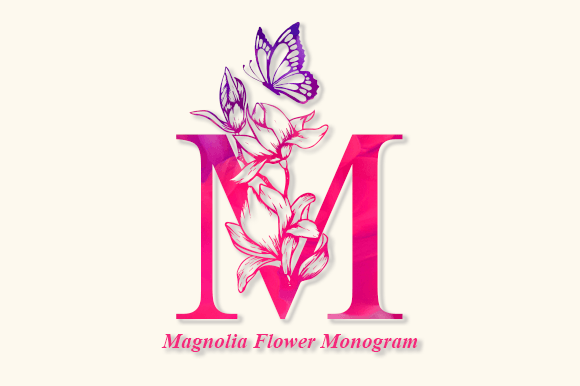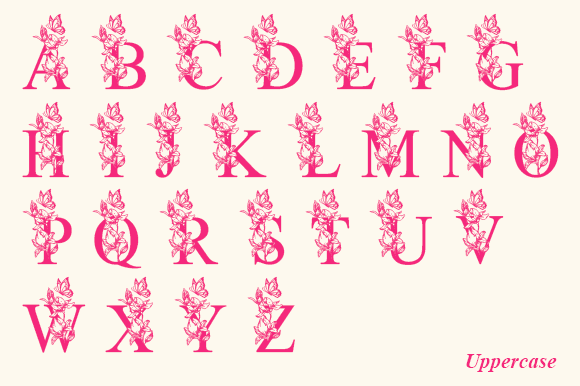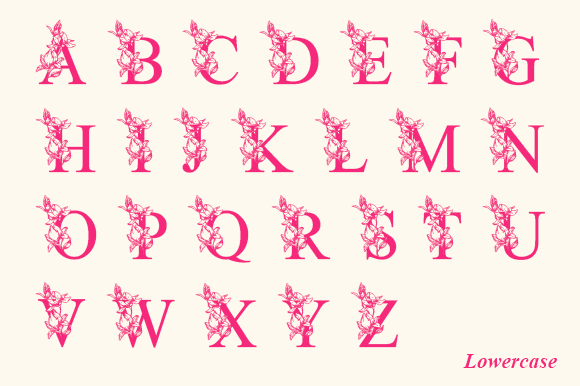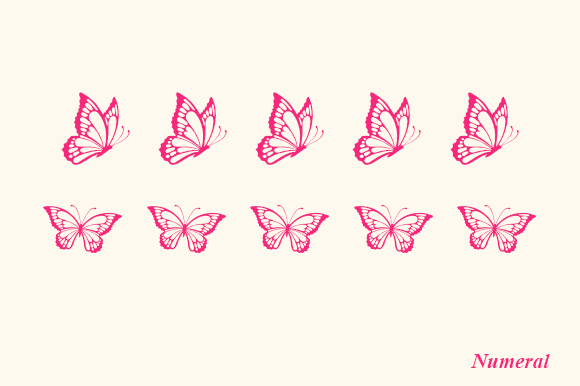
Magnolia Flower Monogram Font
About the Magnolia Flower Monogram Font
Meet Magnolia Flower Monogram Font, a stunning font that brings a touch of elegance and professionalism to any design. Magnolia Flower Monogram is an elegant decorative font, featuring lovely ornaments. Fall in love with its authentic feel and use it to create gorgeous wedding invitations, beautiful stationary art, eye-catching social media posts, and cute greeting cards.
Its elegant, decorative style makes it ideal for projects requiring a touch of vintage charm. Magnolia Flower Monogram excels in applications such as logos, short headlines, and packaging where its ornate details can shine. Avoid using it for lengthy body text or user interfaces; its decorative nature compromises readability in smaller sizes or continuous blocks of text.
Pairing it with a clean sans-serif like Helvetica Neue for a sophisticated contrast, or a playful script font like Pacifico for a more whimsical feel, will enhance its visual impact. For a more classic look, consider pairing it with a traditional serif font like Garamond.
The font projects a refined, romantic personality, making it perfect for brands associated with luxury goods, floral design, or events like weddings or anniversaries. Its decorative flourish adds a touch of vintage elegance.